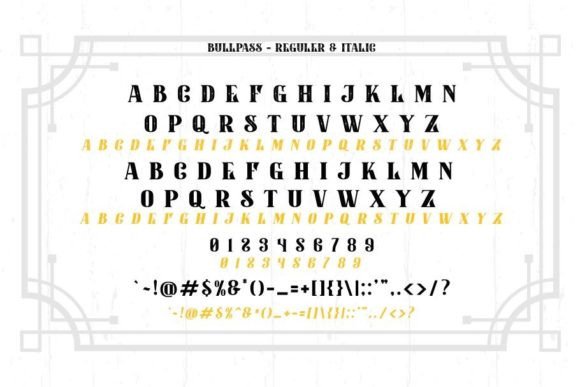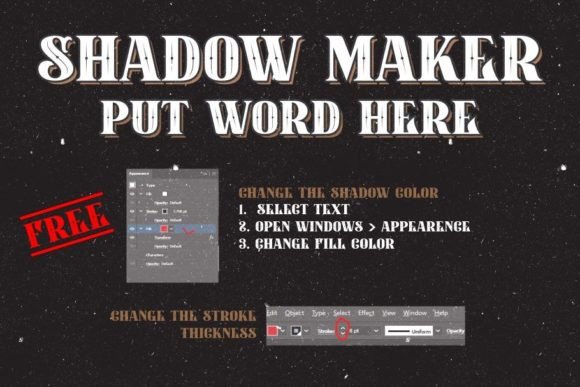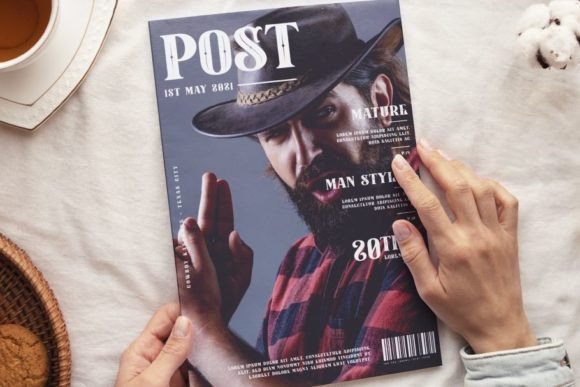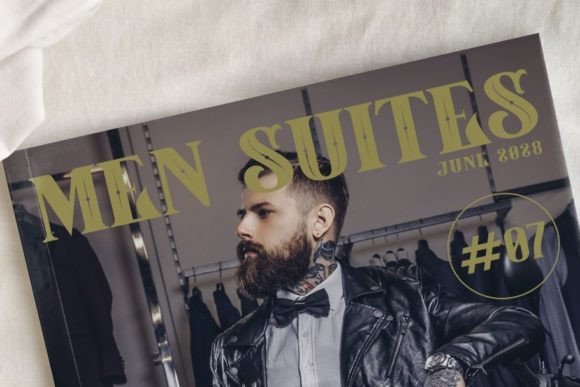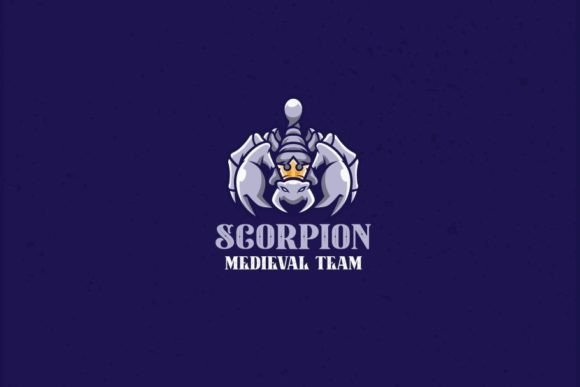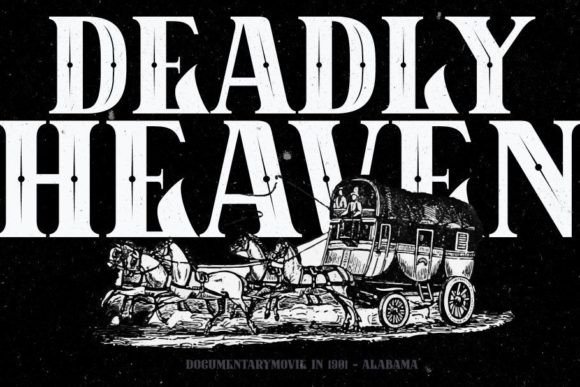
Bullpass Font: A Timeless Classic Serif Font for Designers and Crafters
In the world of typography, fonts play a crucial role in conveying the tone and personality of a brand or design. For designers and crafters looking for a font that exudes a sense of nostalgia and sophistication, Bullpass Font is an excellent choice. This classic serif font has been carefully handcrafted to create an old-school look with a modern twist, making it suitable for a wide range of design applications.
The Characteristics of Bullpass Font
Bullpass Font is a meticulously crafted serif font that boasts a unique blend of traditional and modern elements. Its classic design is reminiscent of old-school typography, while its modern touch ensures that it remains relevant and versatile. The font features:
- Classic serif design with a modern twist
- Handcrafted to ensure a high level of detail and precision
- Suitable for logo text, branding, posters, old news headlines, magazines/publishing, labels, badges, packaging, and more
Design Applications for Bullpass Font
Bullpass Font is an incredibly versatile font that can be used in a variety of design applications. Here are some ideas to get you started:
Logo Text and Branding
Create a lasting impression with Bullpass Font by using it for logo text and branding. The font’s classic design ensures that your logo will stand the test of time, while its modern touch adds a level of sophistication and elegance.
Posters and Old News Headlines
Add a touch of nostalgia to your posters and old news headlines with Bullpass Font. The font’s old-school design is perfect for creating eye-catching headlines and titles that evoke a sense of history and tradition.
Magazines and Publishing
Bullpass Font is an excellent choice for magazines and publishing. The font’s classic design ensures that your content will look professional and sophisticated, while its modern touch adds a level of flair and creativity.
Labels, Badges, and Packaging
Use Bullpass Font to create eye-catching labels, badges, and packaging that will make your products stand out. The font’s bold and classic design ensures that your branding will be noticed, while its modern touch adds a level of style and sophistication.
Why Choose Bullpass Font?
So, why should you choose Bullpass Font for your design projects? Here are just a few reasons:
- Unique blend of traditional and modern elements
- Handcrafted to ensure a high level of detail and precision
- Perfect for designers and crafters looking for a classic serif font with a modern twist
In conclusion, Bullpass Font is an excellent choice for designers and crafters looking for a classic serif font with a modern twist. Its unique blend of traditional and modern elements makes it suitable for a wide range of design applications, from logo text and branding to posters, old news headlines, magazines/publishing, labels, badges, packaging, and more. With its handcrafted design and versatile compatibility, Bullpass Font is sure to become a staple in your design toolkit.